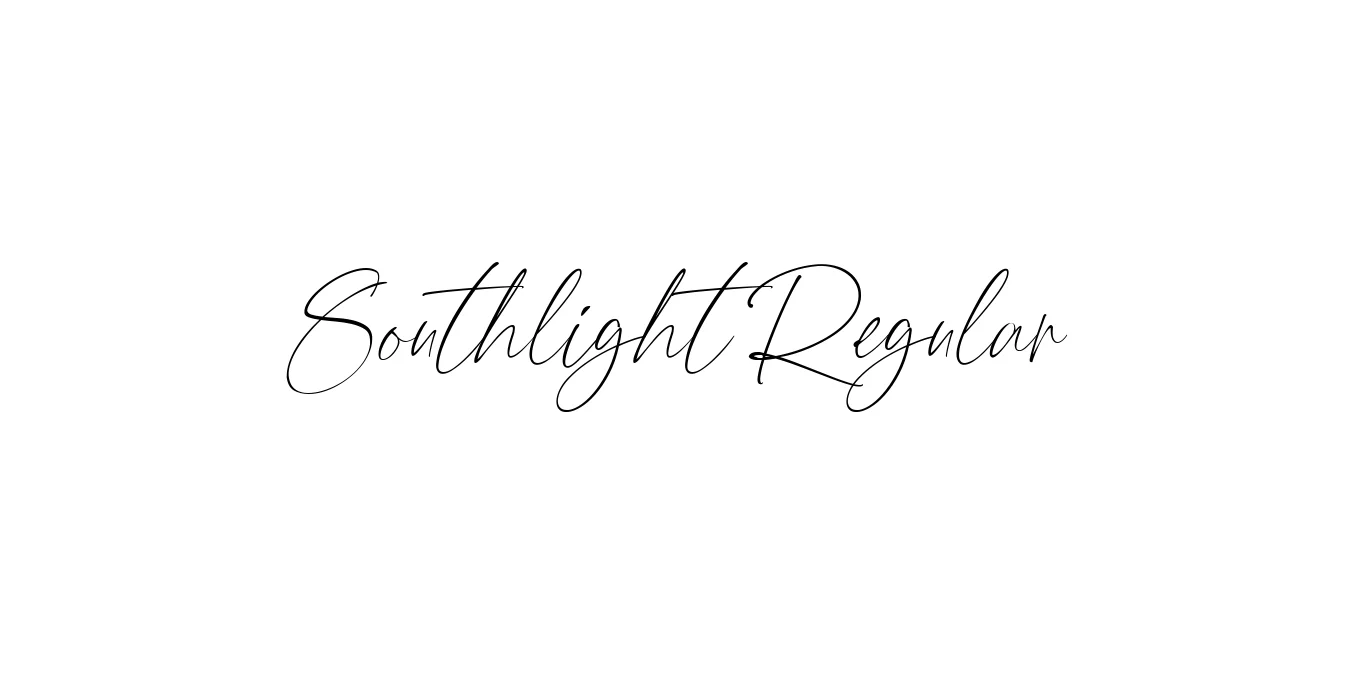
Southlight Regular
Southlight Regular is a sophisticated script typeface that embodies elegance and fluid motion. Created by Letterena Studios, it features natural-looking ligatures and a graceful flow that mimics authentic handwriting. Its balanced strokes make it ideal for high-end branding projects where a touch of personality and luxury is required.
This font is particularly effective in wedding stationery, invitations, and fashion-related designs. The Southlight family offers a timeless aesthetic that bridges the gap between traditional calligraphy and modern digital design. Its versatility allows it to be used in both large headers and delicate subtext, ensuring a professional and cohesive look across various media platforms.
Southlight Regular Best Uses
Adds a romantic and personal touch to invitations and RSVPs.
Perfect for logos that need a unique, handcrafted signature aesthetic.
Enhances quotes and fashion-centric posts with a chic, personal vibe.
Ideal for premium artisanal products and luxury cosmetics labels.